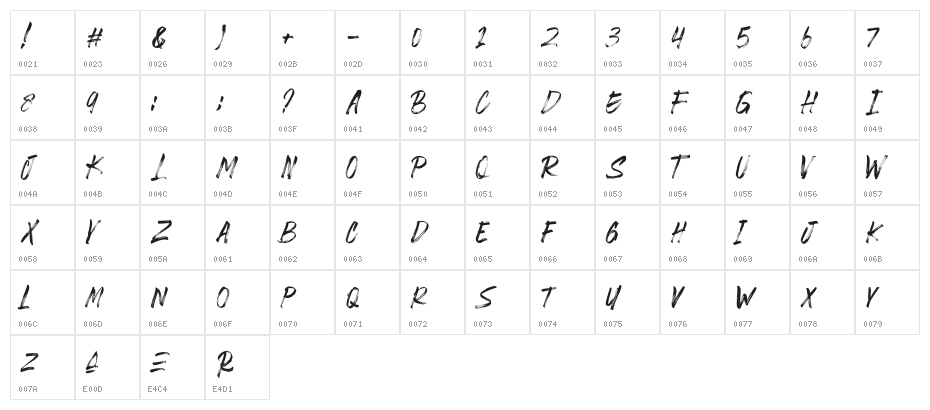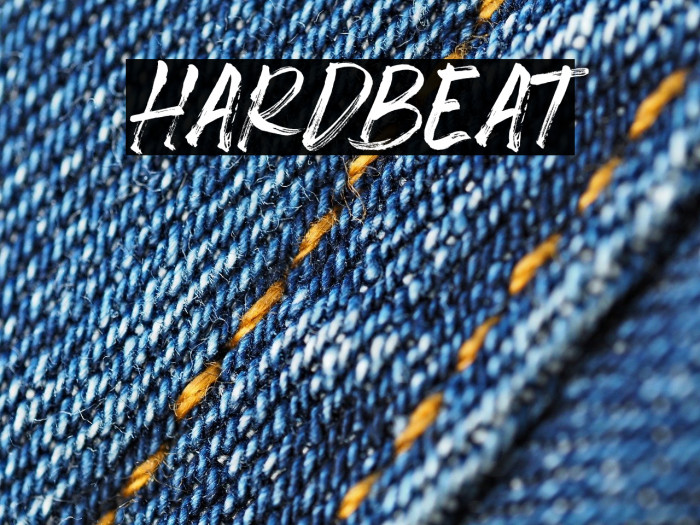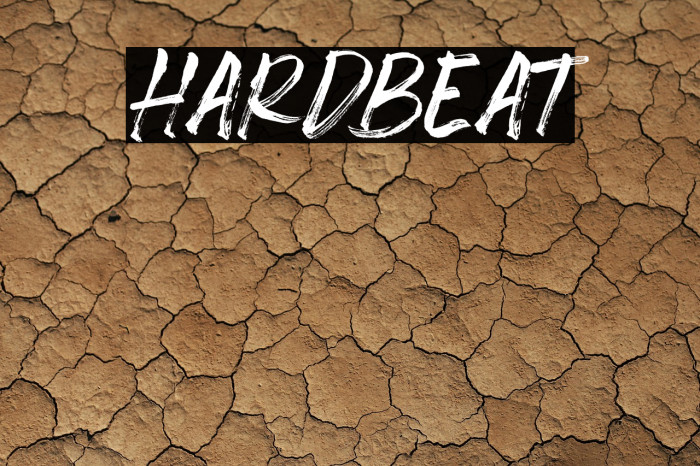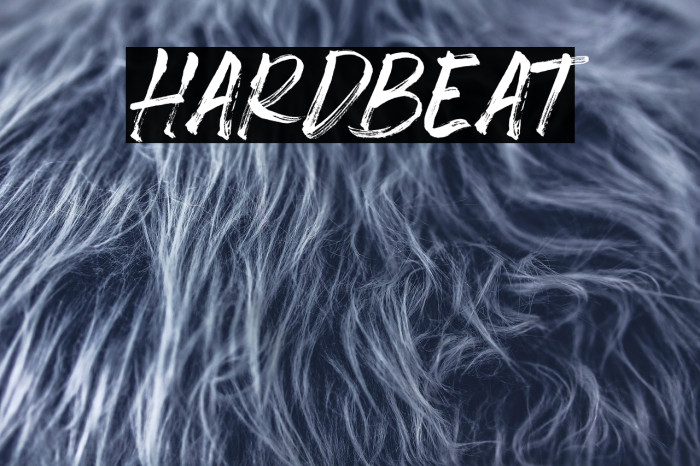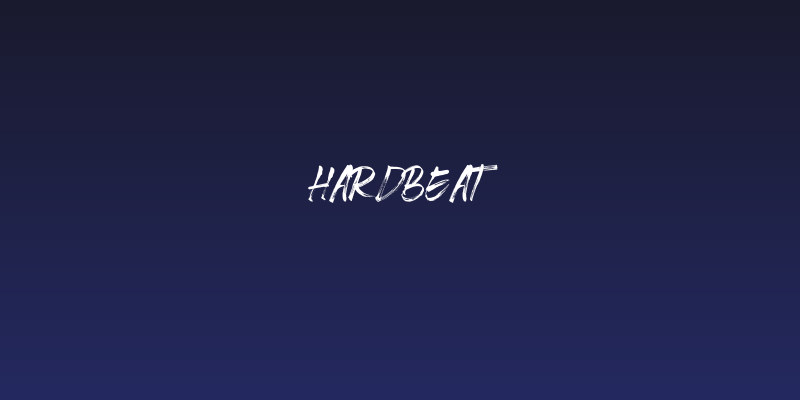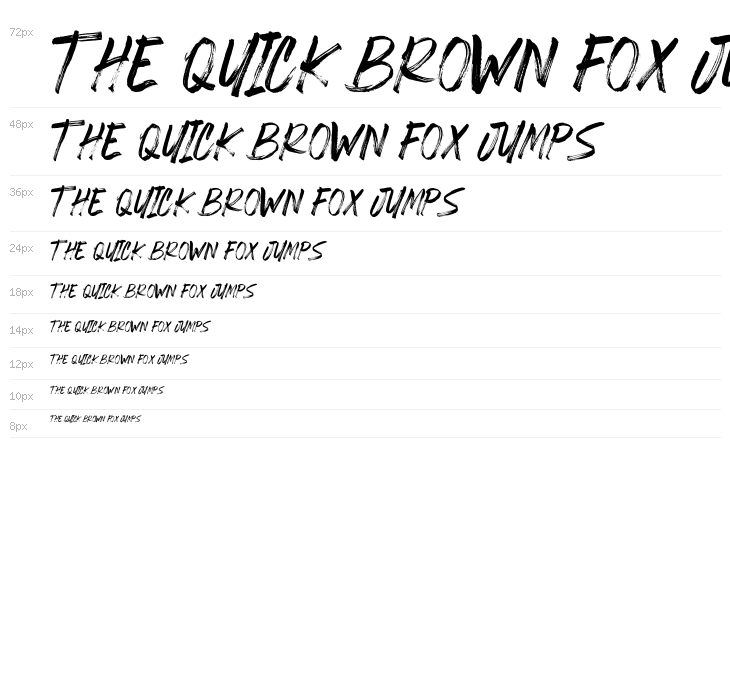
Hardbeat Font
Hardbeat Description
This font exudes a dynamic and energetic vibe, characterized by its brushstroke-like appearance. The letters are bold and expressive, with a hand-painted quality that suggests movement and spontaneity. The strokes vary in thickness, creating a sense of rhythm and flow. This style is reminiscent of street art or graffiti, making it ideal for projects that require a bold, artistic touch. The uppercase and lowercase letters maintain a consistent style, while the numbers and special characters complement the overall aesthetic. The font's unique texture and irregularities add to its charm, making it stand out in any design.
| Proposed Projects | Ideal for posters, album covers, branding for creative industries, and any project needing a bold artistic statement. |